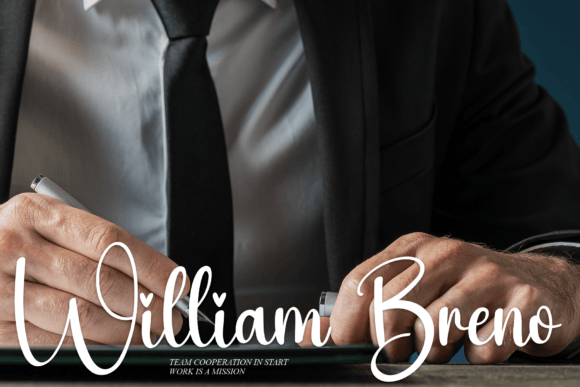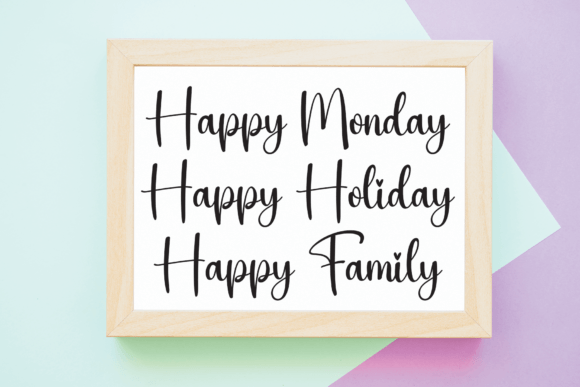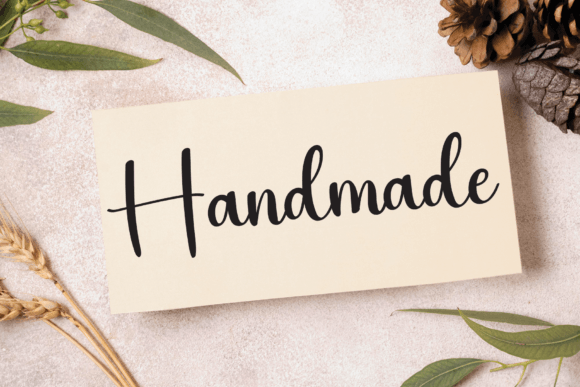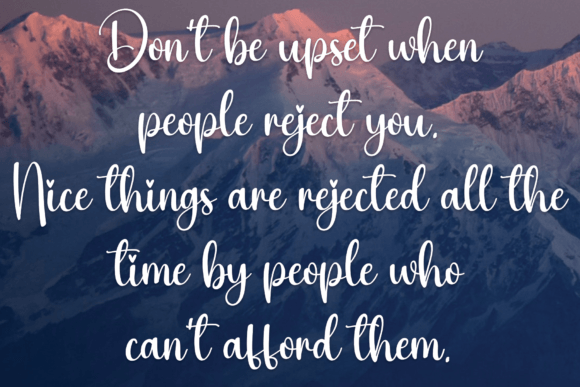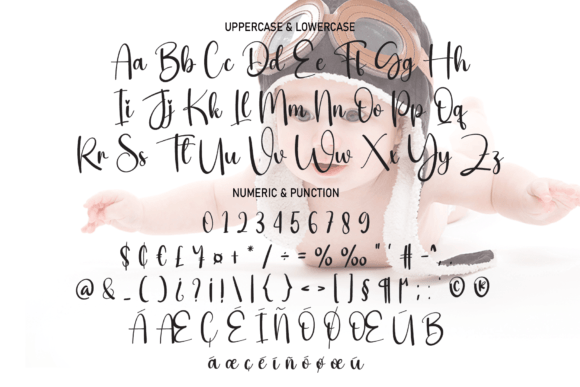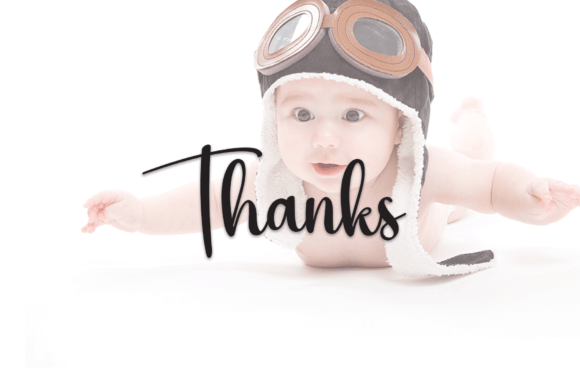
Winsome Font
About Winsome Font
“Winsome’s latest style letters embody a perfect fusion of modernity and handwritten elegance, making them an impeccable choice for an array of applications. Whether utilized in wall displays, wedding invitations, social media post logos, advertisements, product packaging, designs, labels, photography, watermarks, invitations, or stationery, these letters bring a handwritten touch to any project.
The appeal of Winsome’s latest style lies in its contemporary design and versatility, positioning it as a reliable option for a diverse range of creative endeavors. This font becomes a go-to selection for designers seeking a typeface that effortlessly combines a handwritten aesthetic with a modern twist.
Whether crafting captivating logos or designing sophisticated wedding invitations, Winsome’s latest style stands out as a font that enhances the overall visual appeal. Its letters exude charm and seamlessly adapt to various design contexts.
Envision Winsome’s latest style elevating your projects, introducing a handwritten allure that infuses character and uniqueness. The font becomes the defining element that sets your designs apart, creating a visual experience that resonates with authenticity and style.
As you explore the nuances of Winsome’s latest style, you’ll discover its potential to transform ordinary projects into visually captivating expressions. Let it be the font that injects a touch of handwritten elegance into your creative vision, making your designs stand out with a delightful and modern aesthetic. With Winsome’s latest style, every letter becomes a brushstroke of contemporary sophistication.”